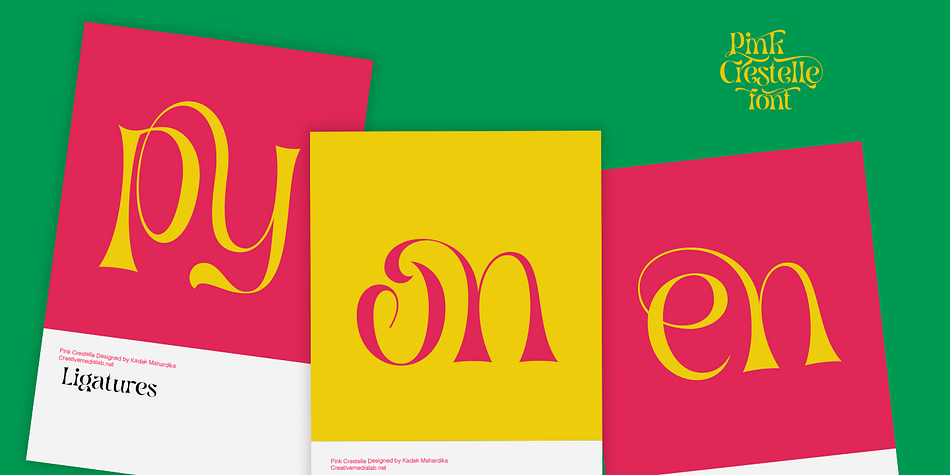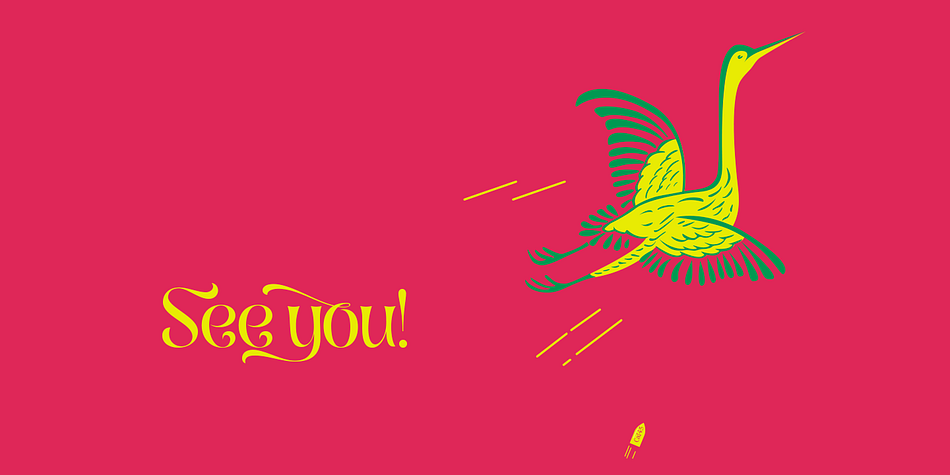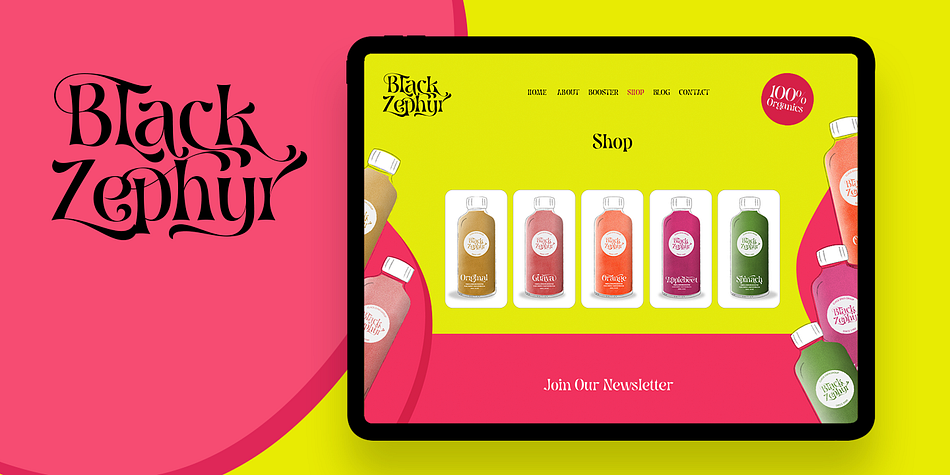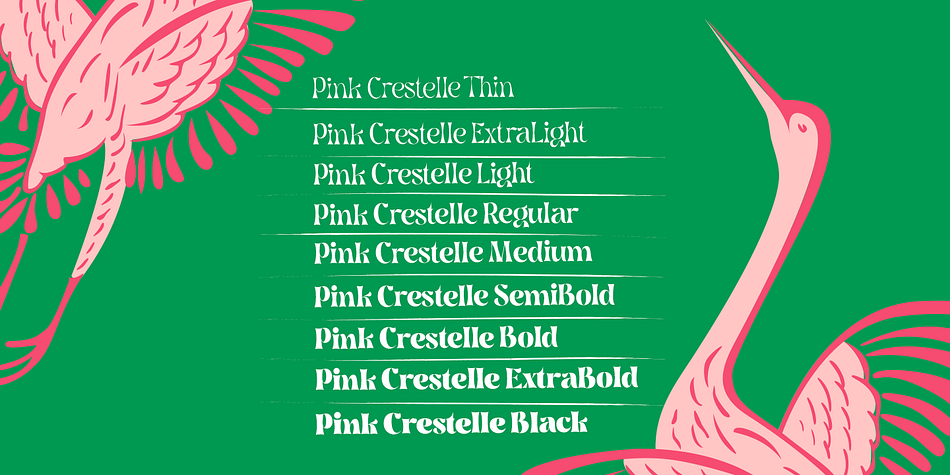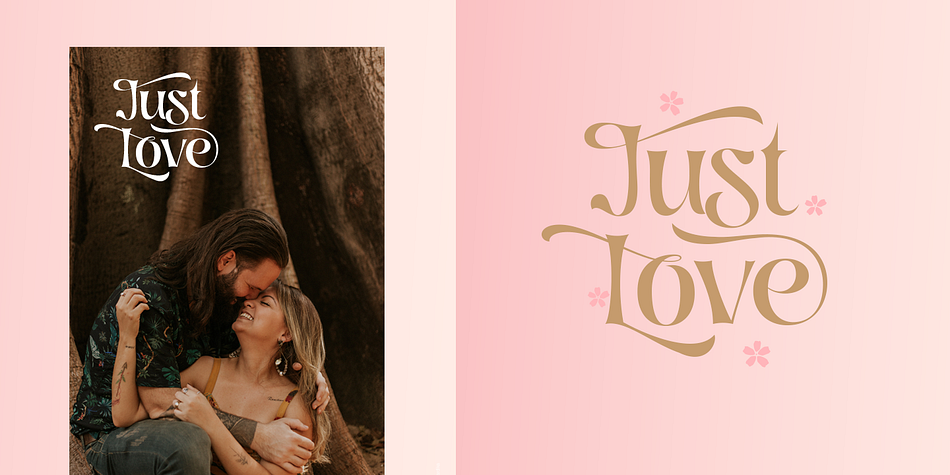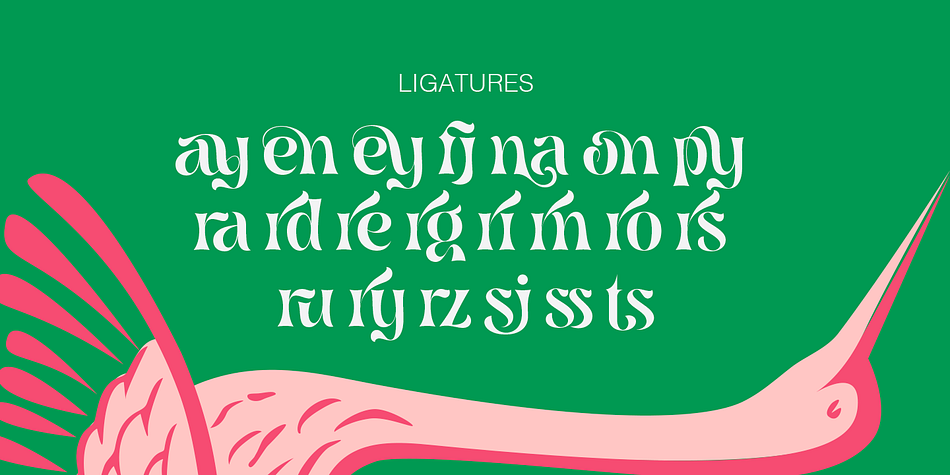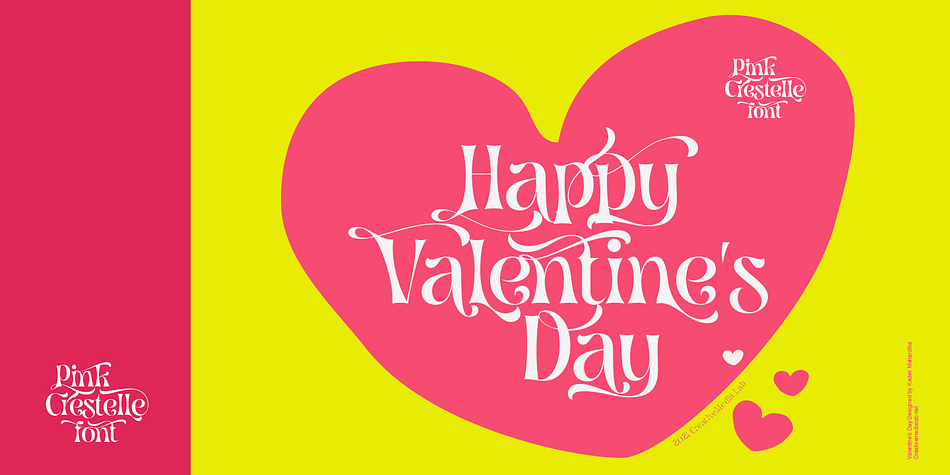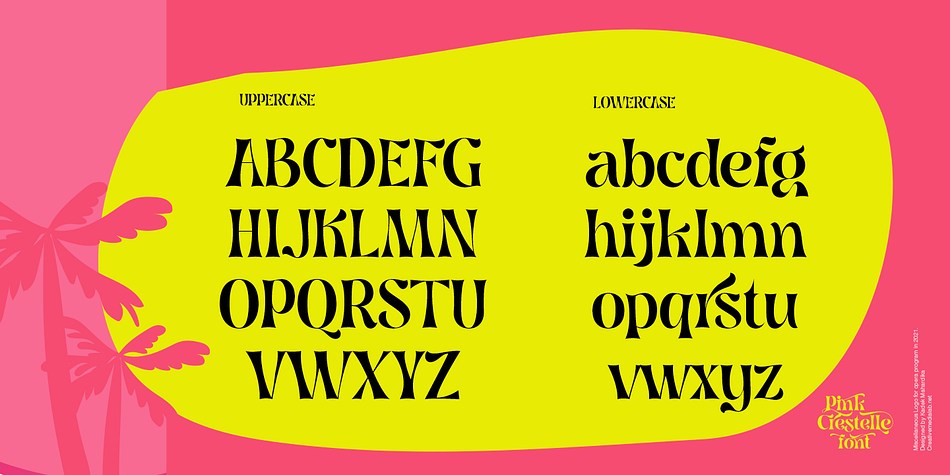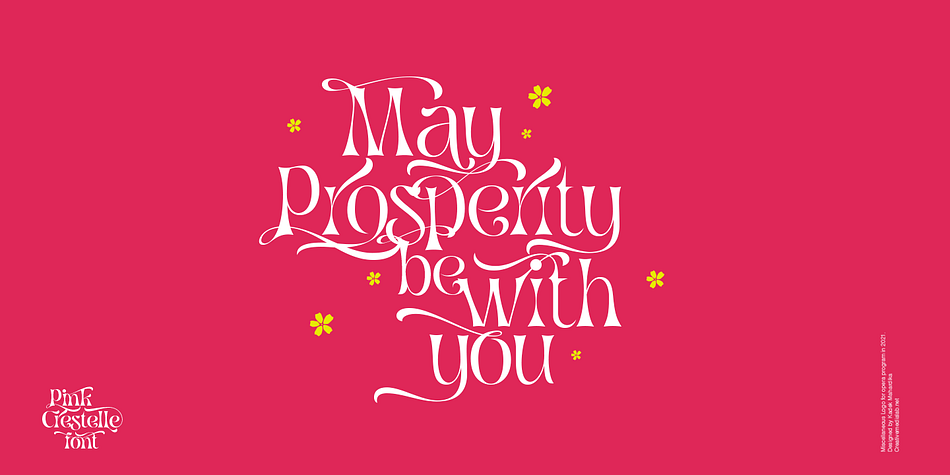
Pink Crestelle is a display sans and retro font family. This typeface has nine styles and was published by Creative Media Lab.
Been working on a tropical or fancy themed project? You will love this family.
Introducing Pink Crestelle, a fancy, versatile and playful font family.
This family contains 9 weights and has tons of alternates and ligatures. Best for branding, webdesign project, Clothing brand, logo design, valentine’s greetings, packaging and much more.